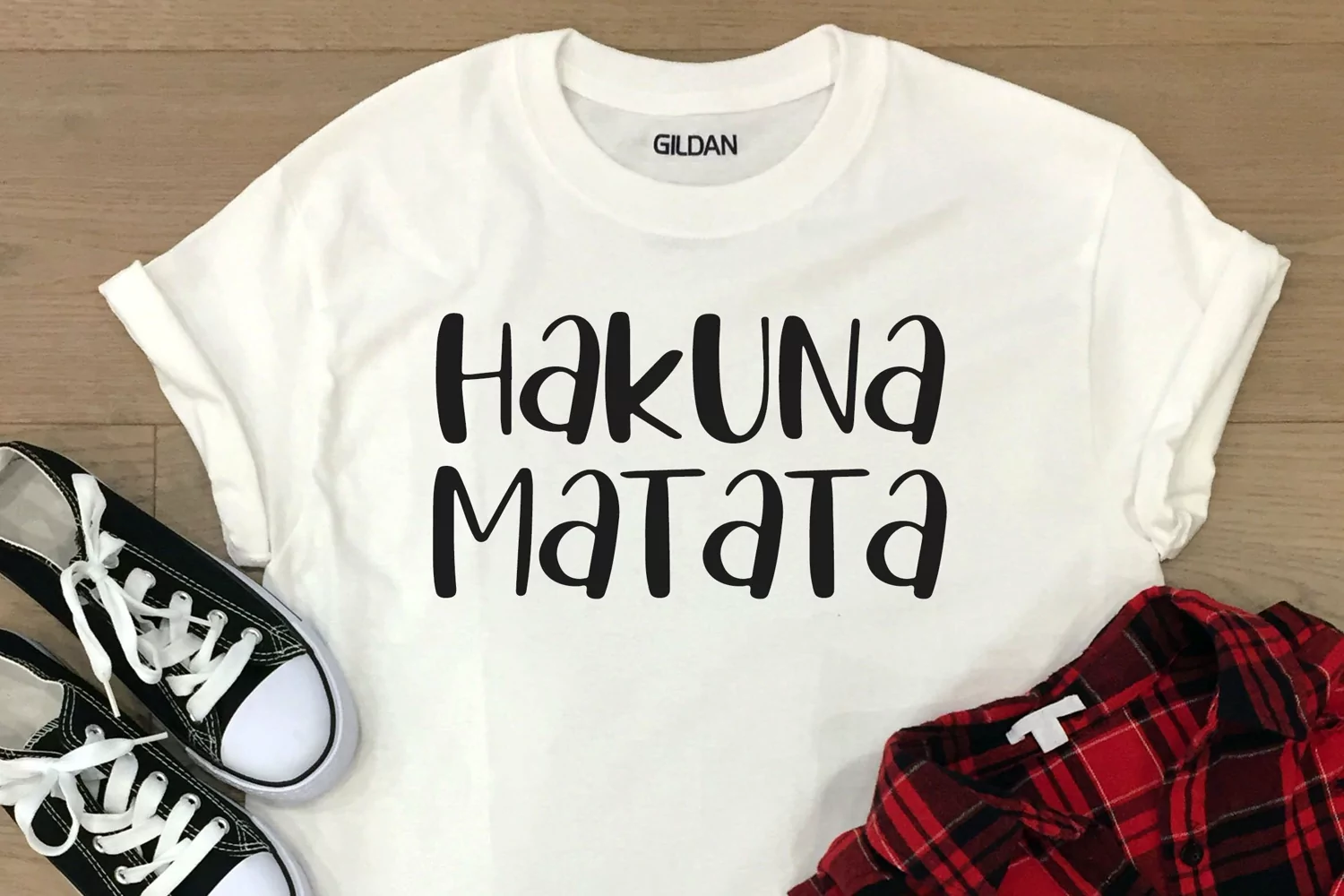
Hakuna Matata is a cool font, refreshing and neat looking display font. No matter the topic, this font will be an incredible asset to your fonts’ library, as it has the potential to elevate any creation.